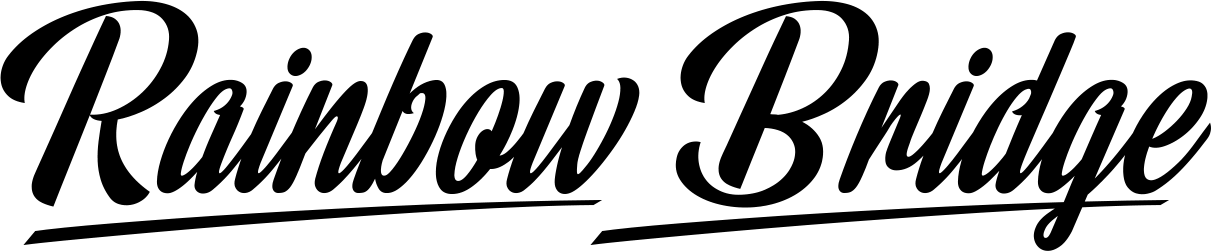
Rainbow Bridge Font
Nothing can illustrate your design with an amusing and retro look as much as a script font. Rainbow Bridge as an old-school font with calligraphic letterform can give an intimate and nostalgic vibe to the texts.
The beauteous curves of this font make it still a superb choice for short and long texts, even without numbers. Rainbow Bridge is enforceable for handwritten quotes, flyers, backgrounds, etc.